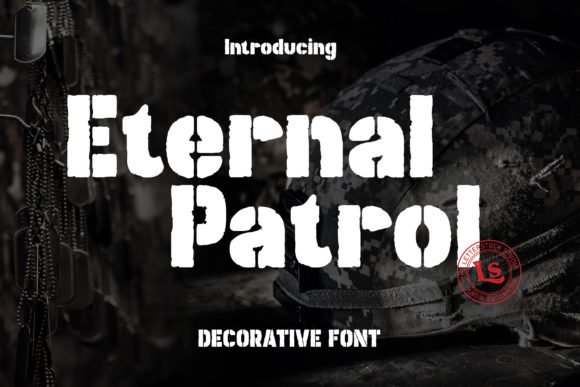
The Perfect Font for Urban Vibes: Unleashing the Power of Eternal Patrol Font
Imagine you’re wandering through a bustling city, surrounded by graffiti-covered walls and vibrant street art. You stumble upon a stunning mural that captures the essence of urban culture, and as you take a closer look, you notice the bold, thick letters that add a touch of ruggedness to the design. This is the kind of creative moment that sparks inspiration, and it’s exactly what the Eternal Patrol Font is designed to evoke.
Eternal Patrol Font is a display font that exudes coolness and edginess, perfect for adding a rough, textured feel to your urban or street art designs. Its bold, thick letters are sure to make a statement and leave a lasting impression on your audience. For designers looking to add a unique touch to their work, Eternal Patrol Font is a valuable asset that can help take their designs to the next level.
Eternal Patrol Font Key Features
- Font Family: Eternal Patrol is a unique, hand-drawn font designed for use in various applications.
- Unique Characteristics: Eternal Patrol features a distressed, vintage aesthetic with intricate details and subtle texture, making it ideal for historical, military, or nautical-themed designs.
- Glyph Count: The font includes a comprehensive set of glyphs, including uppercase and lowercase letters, numbers, punctuation marks, and special characters.
Eternal Patrol Font Review
As a designer, I was excited to dive into the Eternal Patrol Font and see what it had to offer. On the plus side, I was impressed by the font’s ✨ elegant and vintage aesthetic. It’s clear that the designers put a lot of effort into creating a unique and visually appealing font that’s perfect for projects that need a touch of nostalgia.
Some of the standout features of the Eternal Patrol Font include:
- ✨ High-quality vector graphics that ensure crisp and clear rendering on any device
- ✨ Robust character set that includes a wide range of languages and symbols
- ✨ Customizable to fit any design project or style
- ⚠️ Limited font weights, which may make it difficult to achieve the desired level of contrast in some designs
- ⚠️ Not as versatile as some other fonts on the market, which may limit its use in certain design projects
Overall, the Eternal Patrol Font is a solid choice for designers looking for a unique and elegant font for their next project. While it may not be the most versatile font on the market, its high-quality graphics and customizable design make it a great option for those who want to add a touch of vintage flair to their work.
For best results, use the Eternal Patrol font in titles, headings, and quotes. You can also use it to add a vintage or retro touch to your designs.
- Designing vintage-inspired posters or advertisements.
- Creating retro-themed invitations or party decorations.
- Adding a unique touch to your website or blog’s typography.
Alternatives to Eternal Patrol Font
Q: Does Eternal Patrol Font support Unicode characters?
Yes, the Eternal Patrol Font supports a wide range of Unicode characters, including Latin, Cyrillic, and Greek alphabets. It also includes a comprehensive set of punctuation and symbol characters. This ensures that the font can be used in a variety of languages and applications.